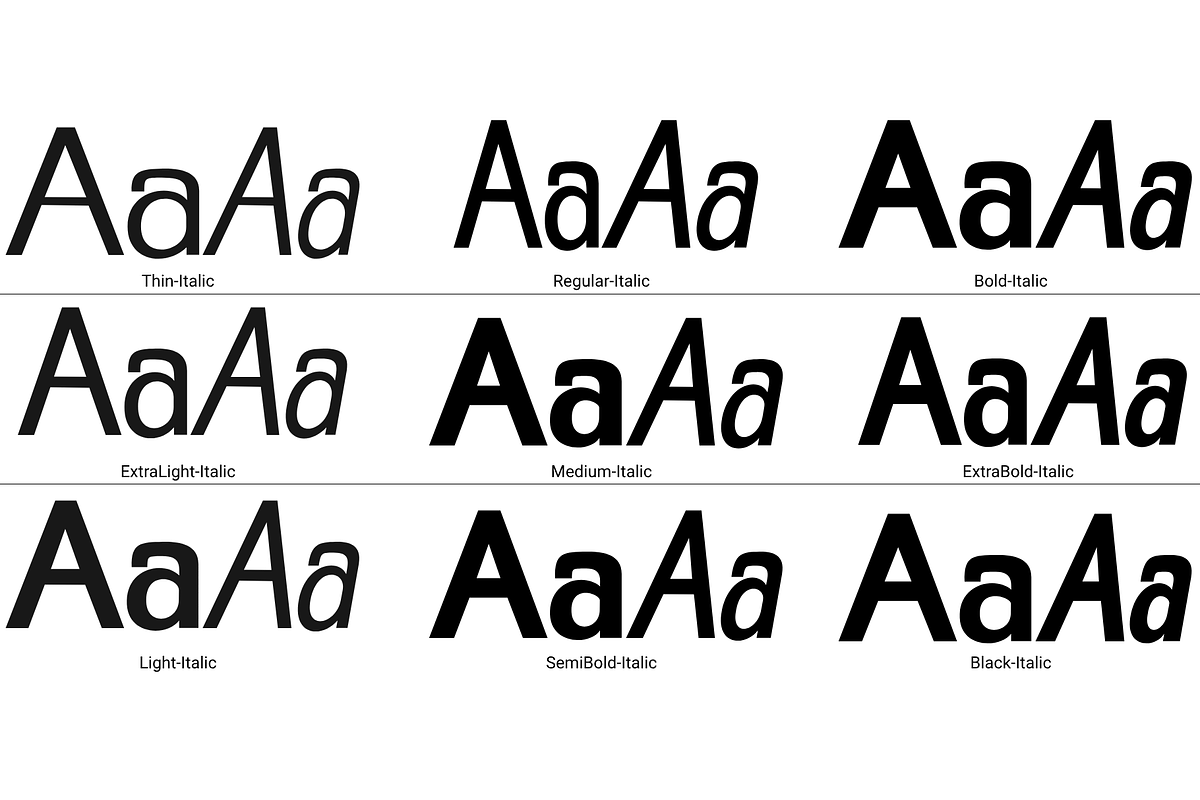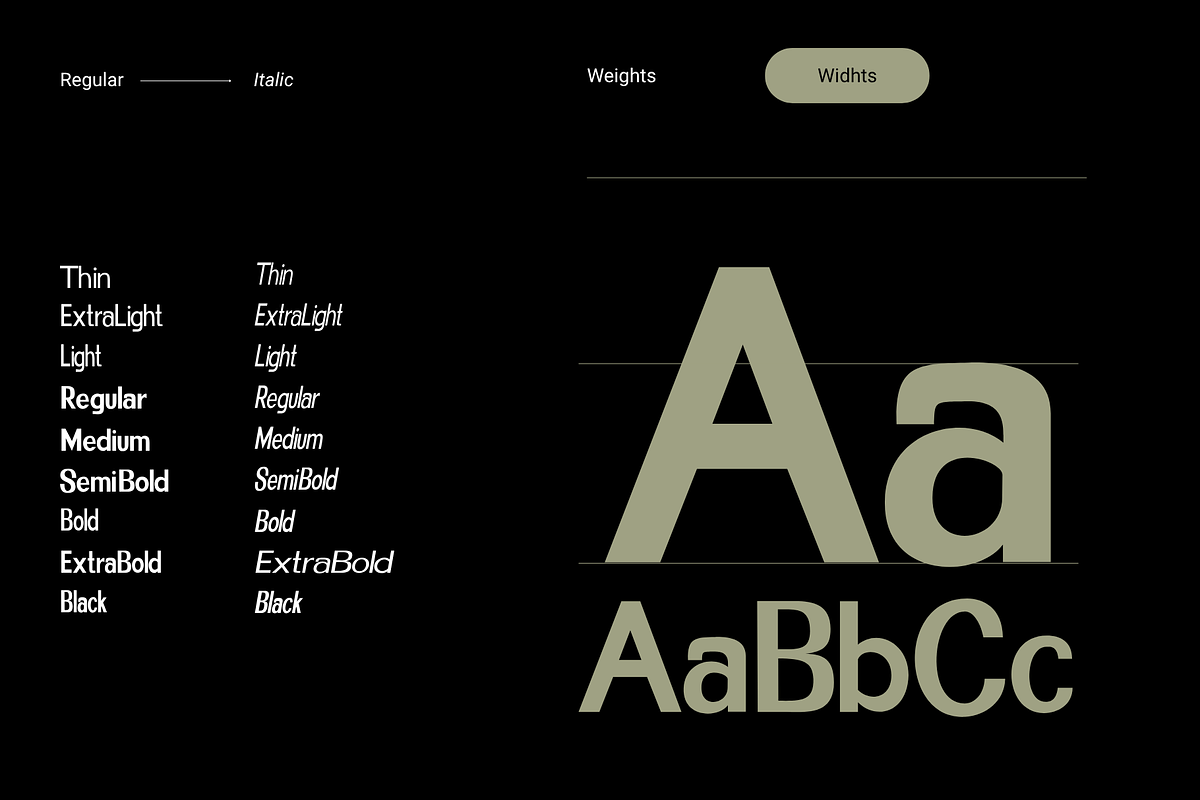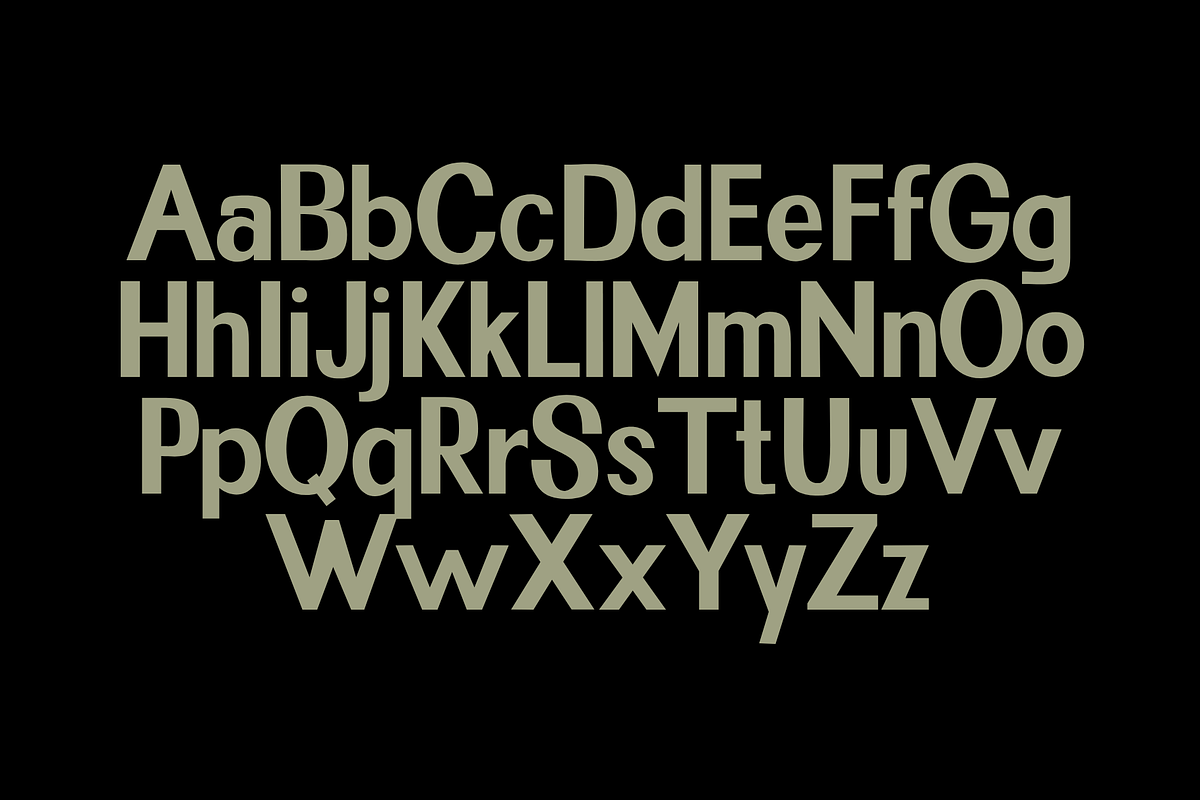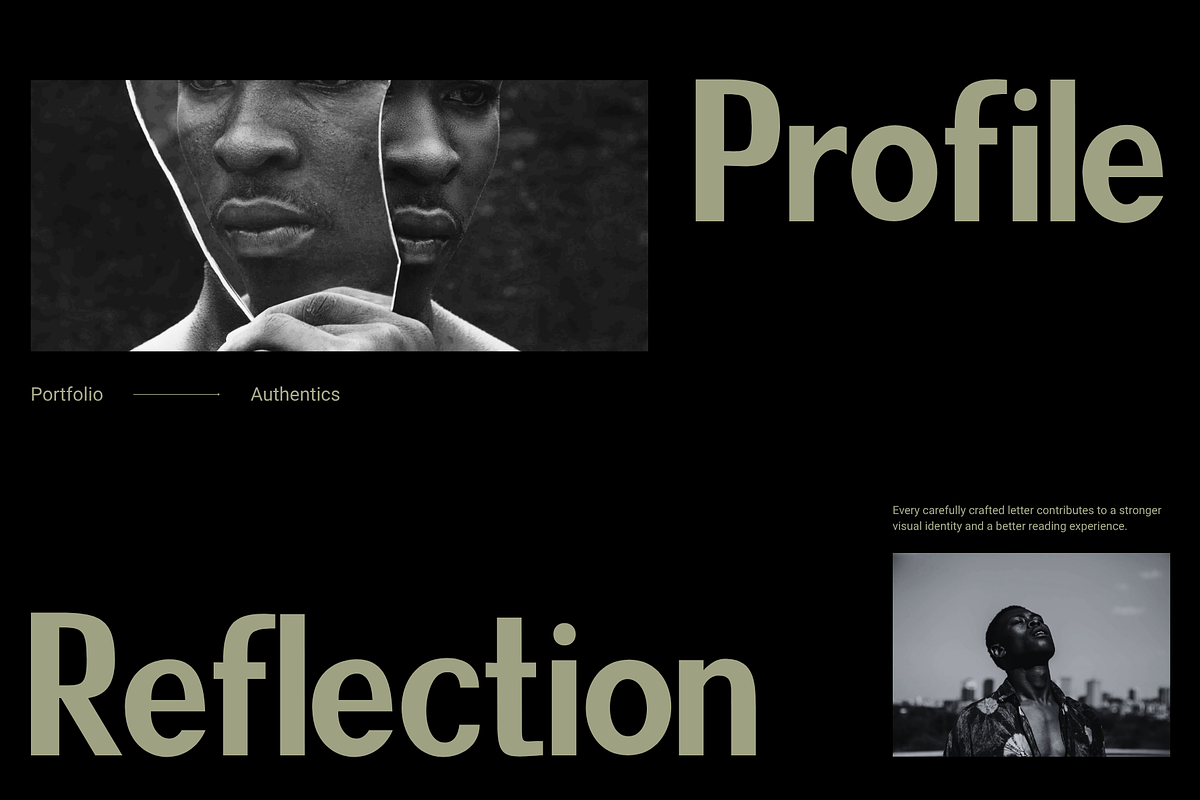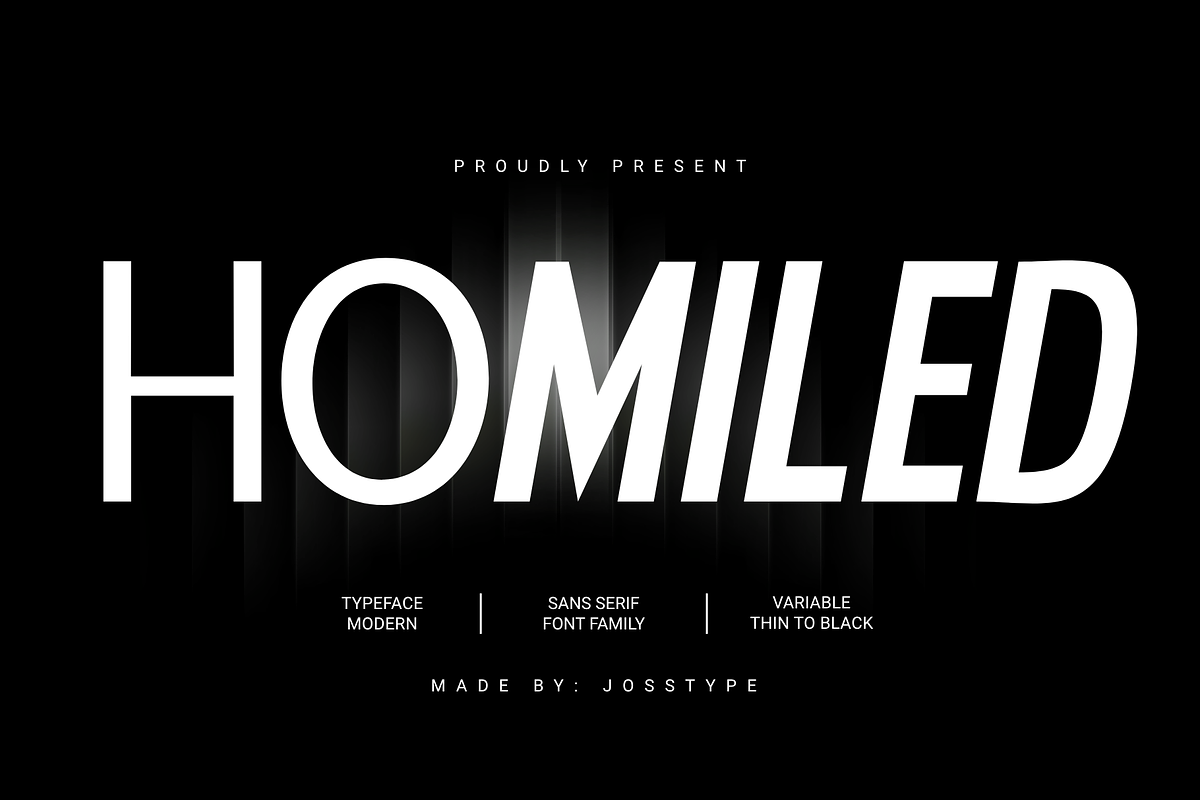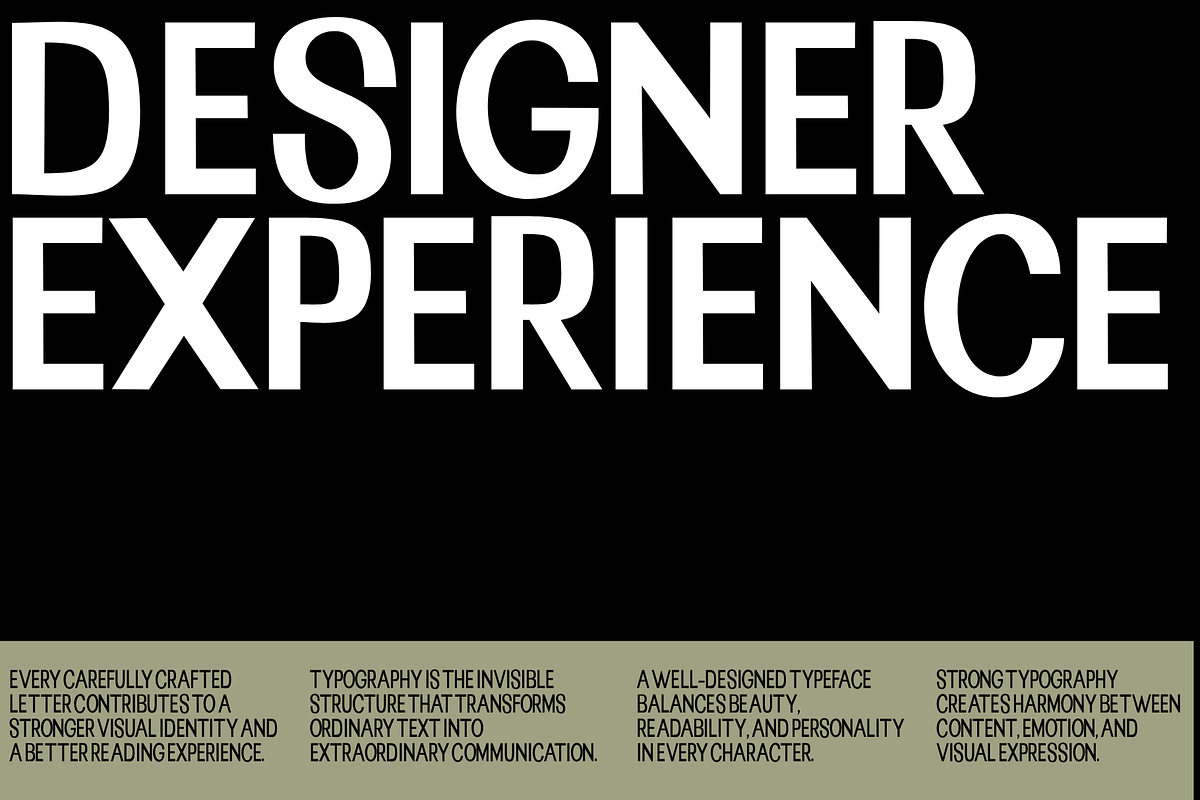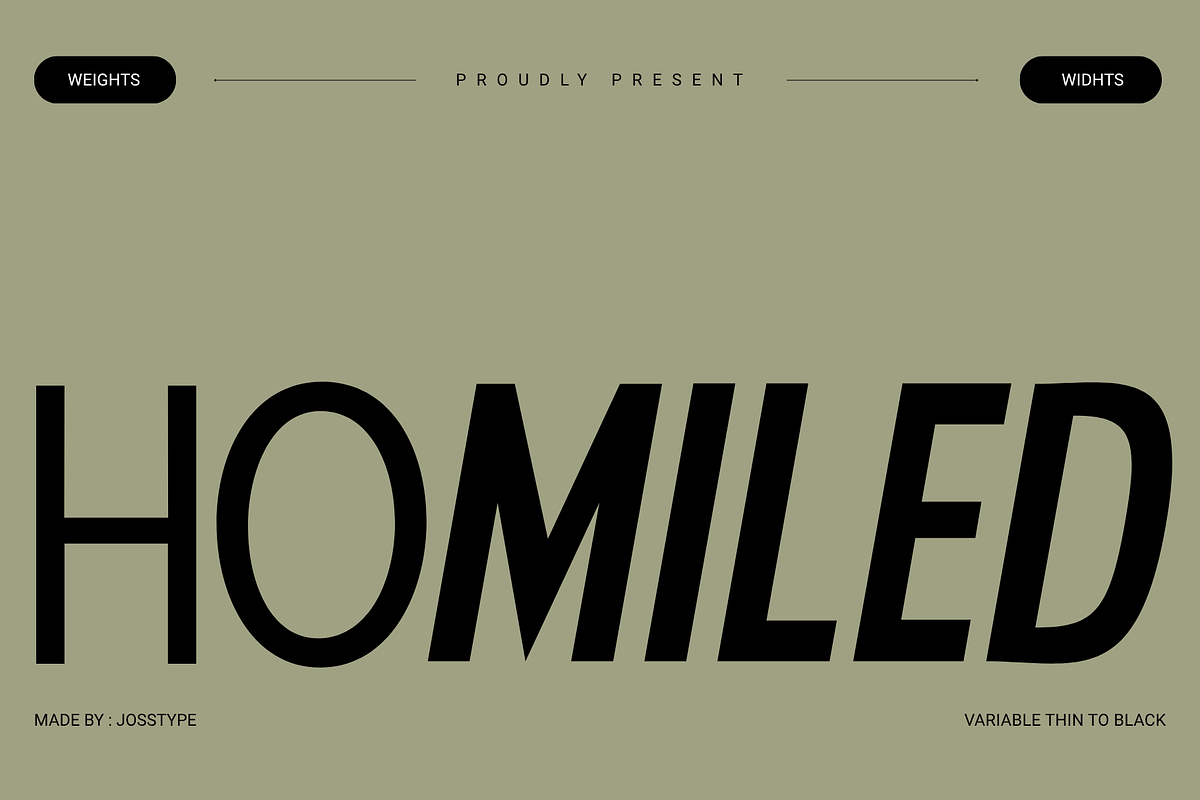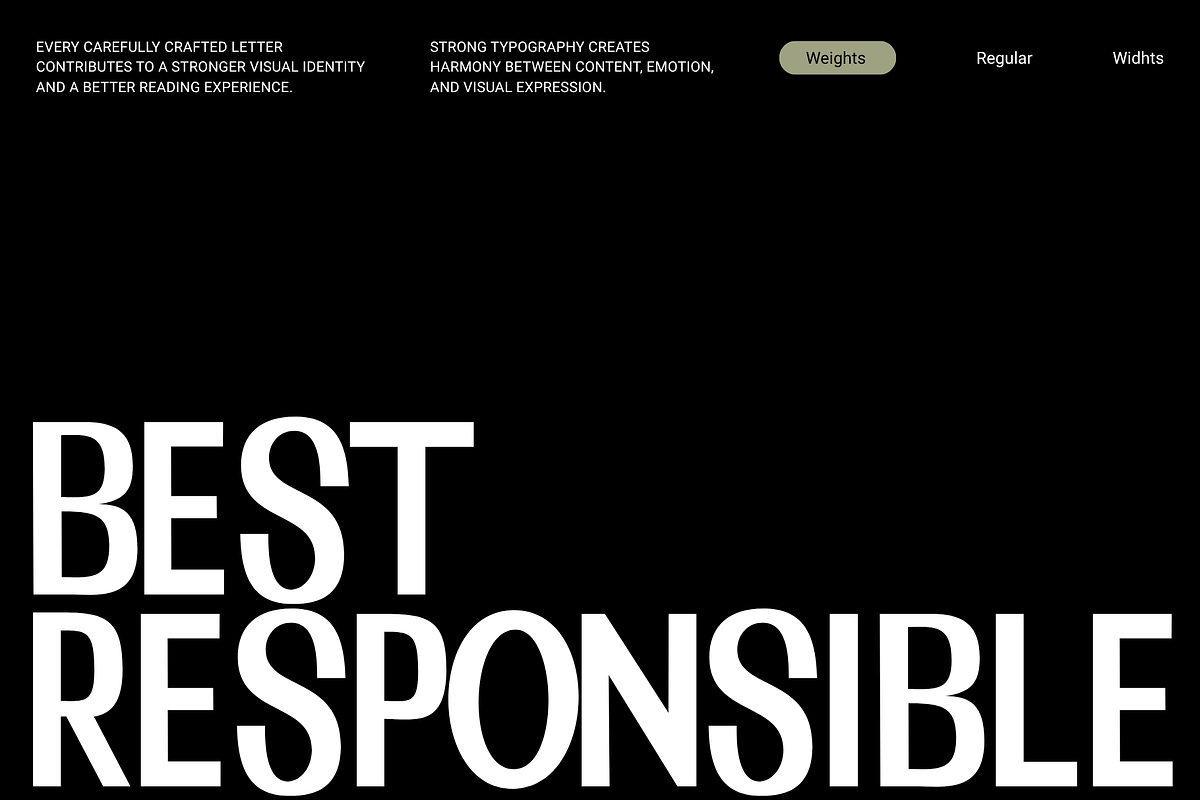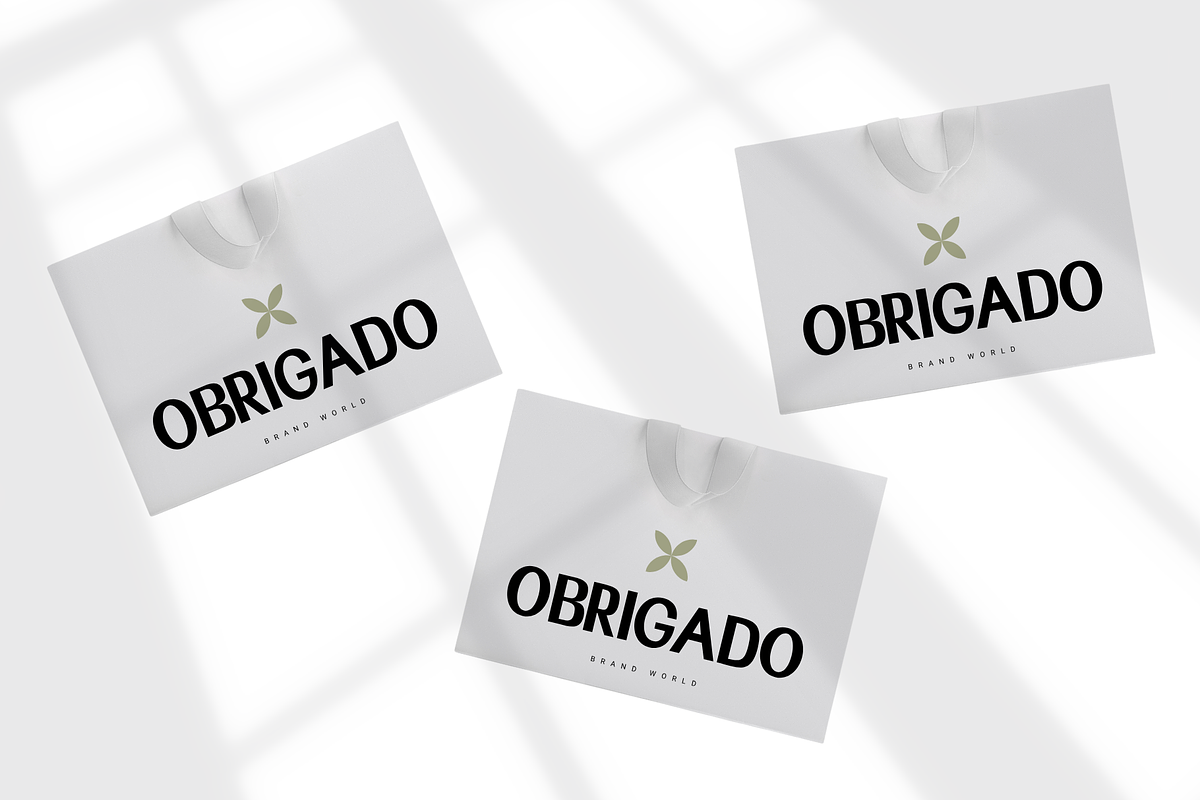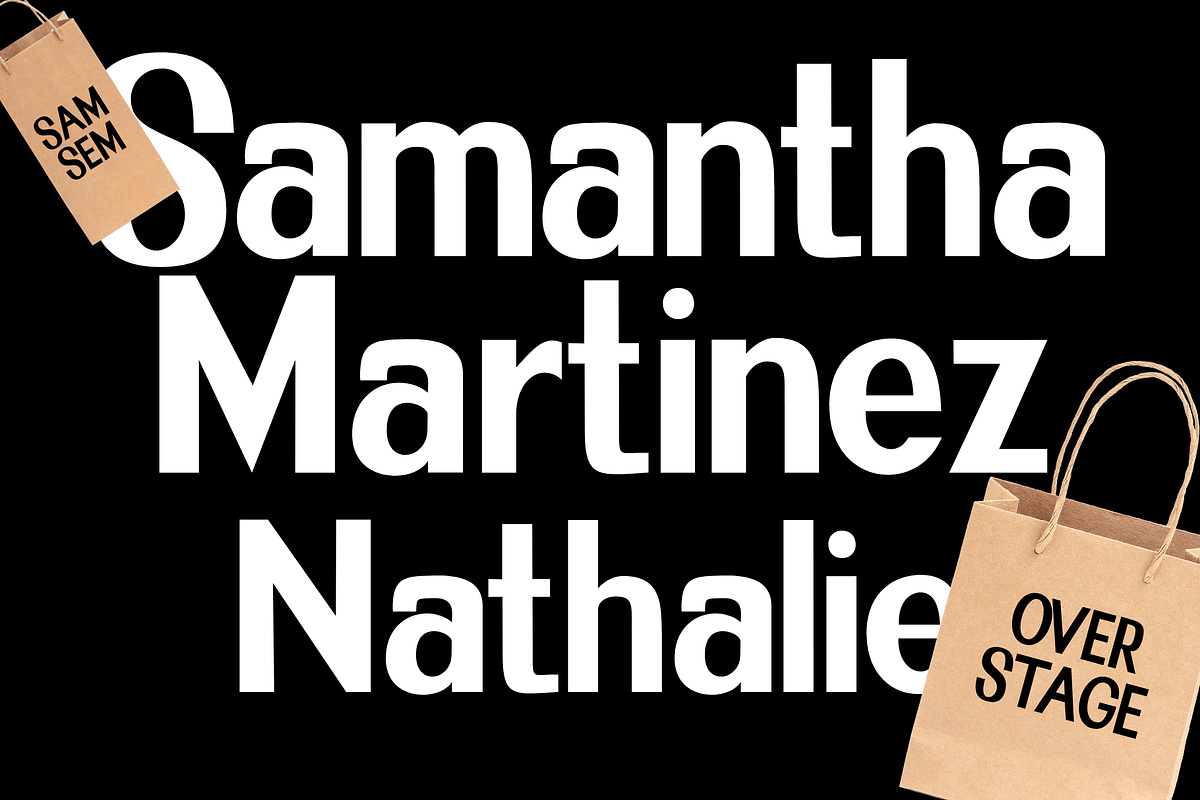
Homiled
Homiled Font Sans Serif It comes equipped with Latin Pro variants—including Thin, Black, and Italic styles. This font is suitable for a wide range of applications in commercial printing or home-based businesses. logo, wedding and other.